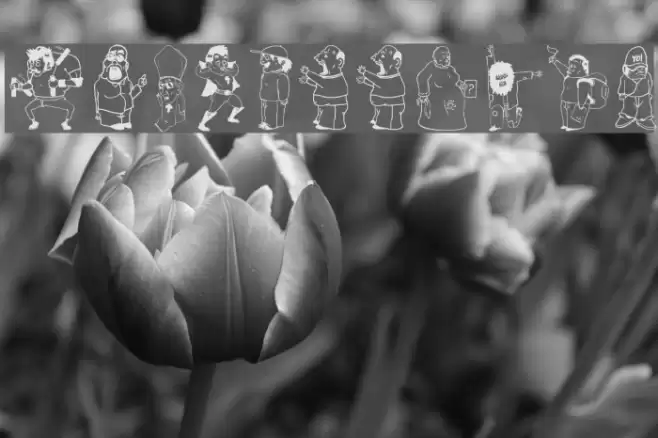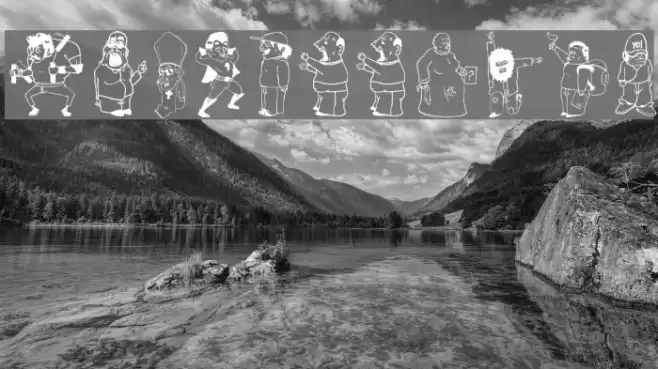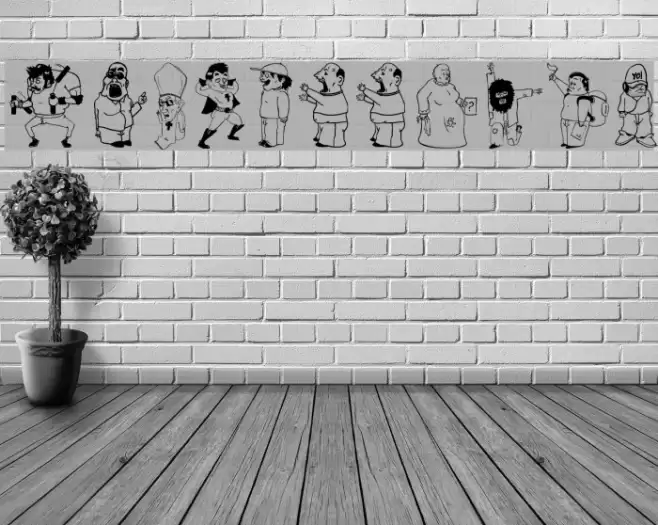
Dumbass Town Font
Dumbass Town Description
A whimsical, hand-drawn display font featuring a variety of quirky cartoon characters in place of traditional alphanumeric and symbol glyphs, each with exaggerated expressions and humorous poses. The set includes speech and thought bubbles as punctuation.
Cartoonish, character-based display font with comic-style illustrations from Uncategorized fonts.
- Proposed Projects: Comic strips, children's books, playful posters, novelty greeting cards, humorous branding.
- Overall Style: Decorative, Whimsical, Comic
- Use Case: Logos, Posters, Comics, Children's materials